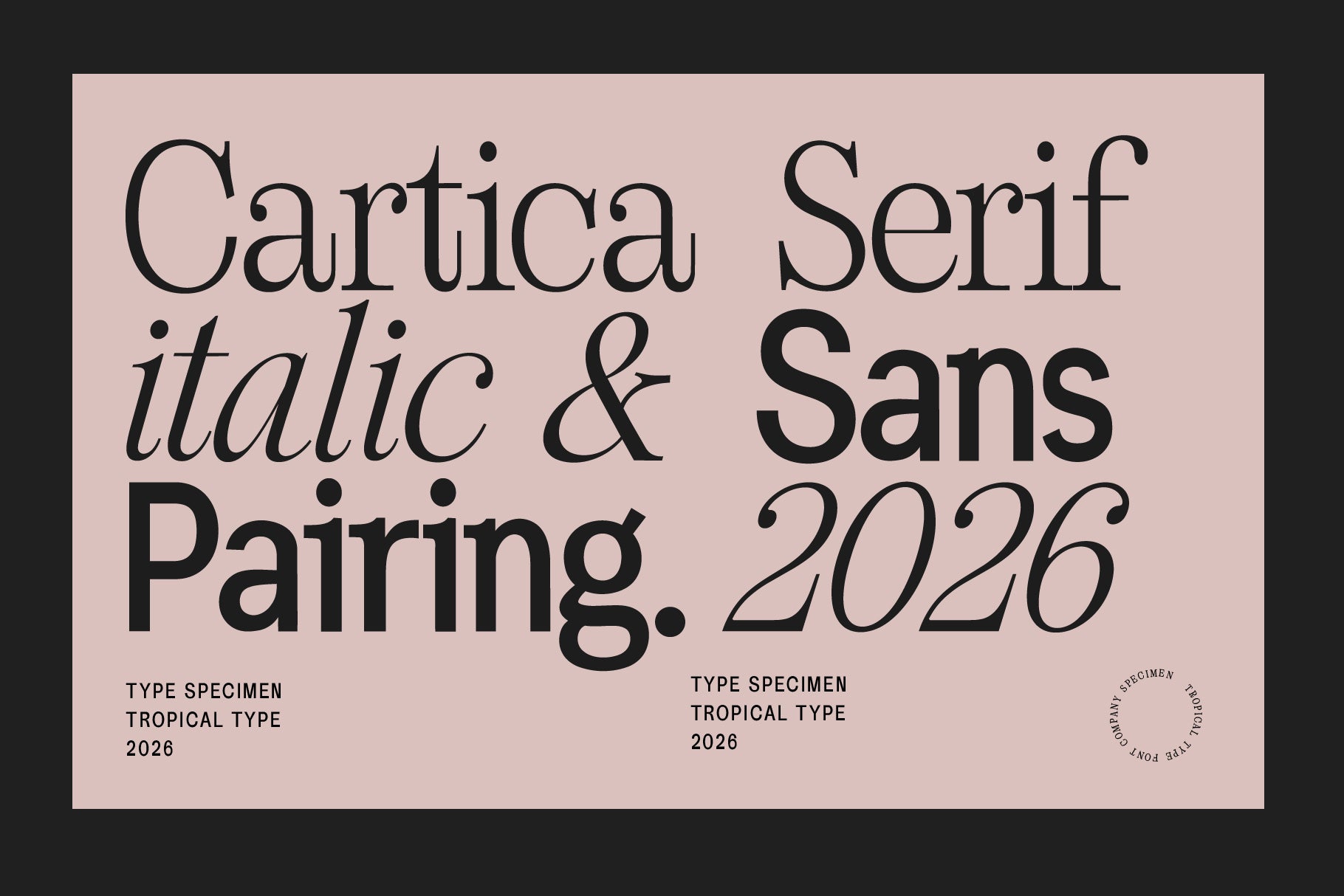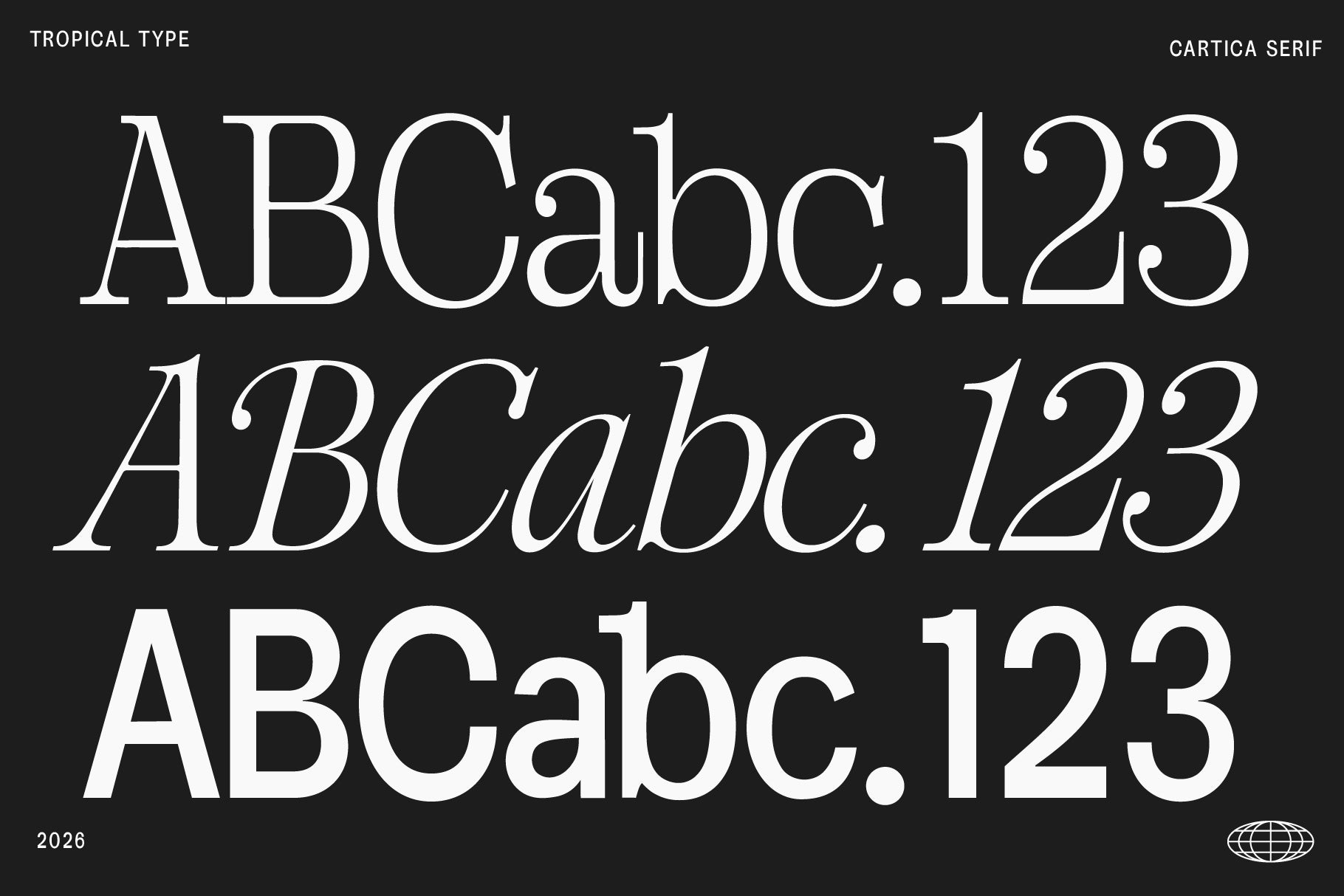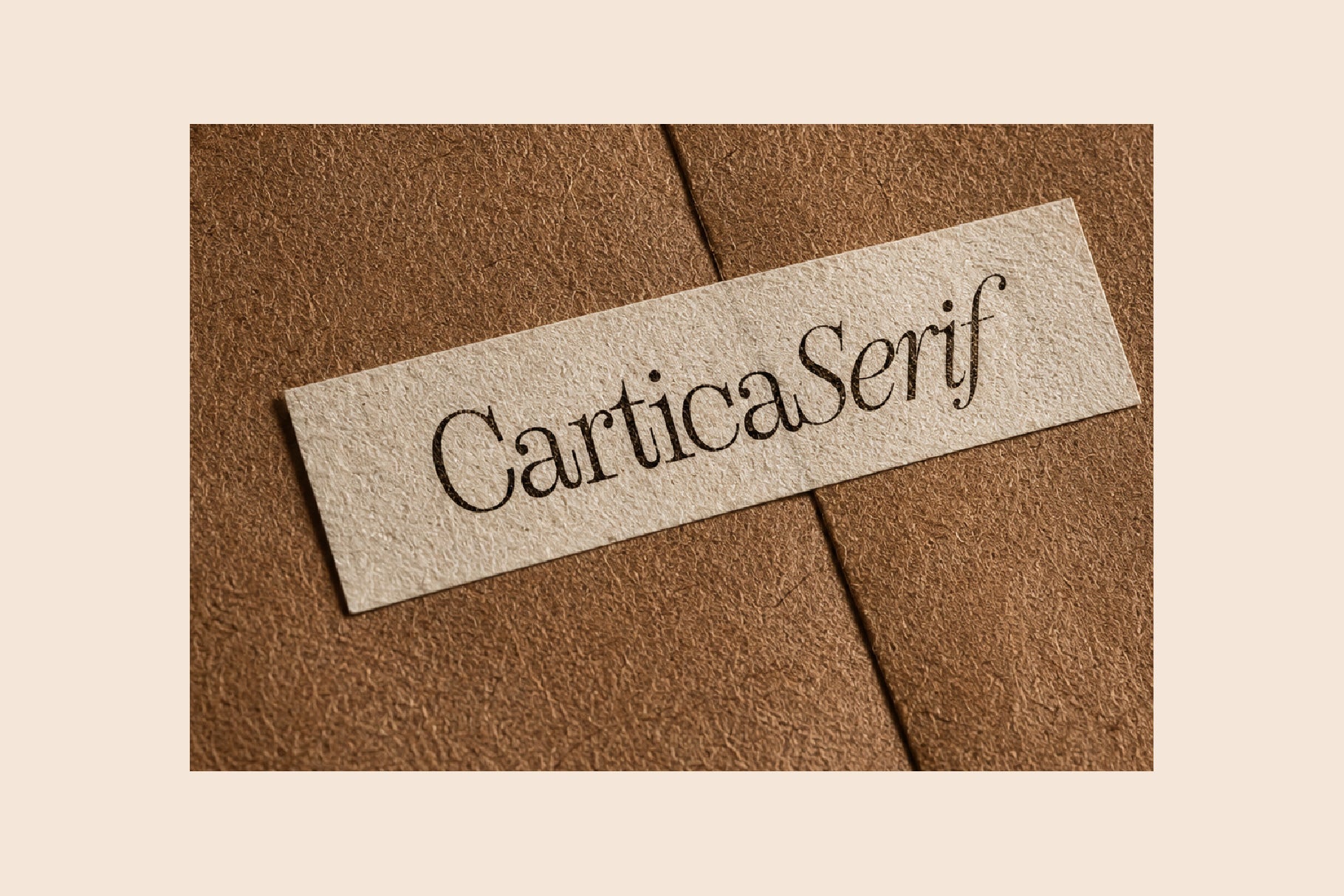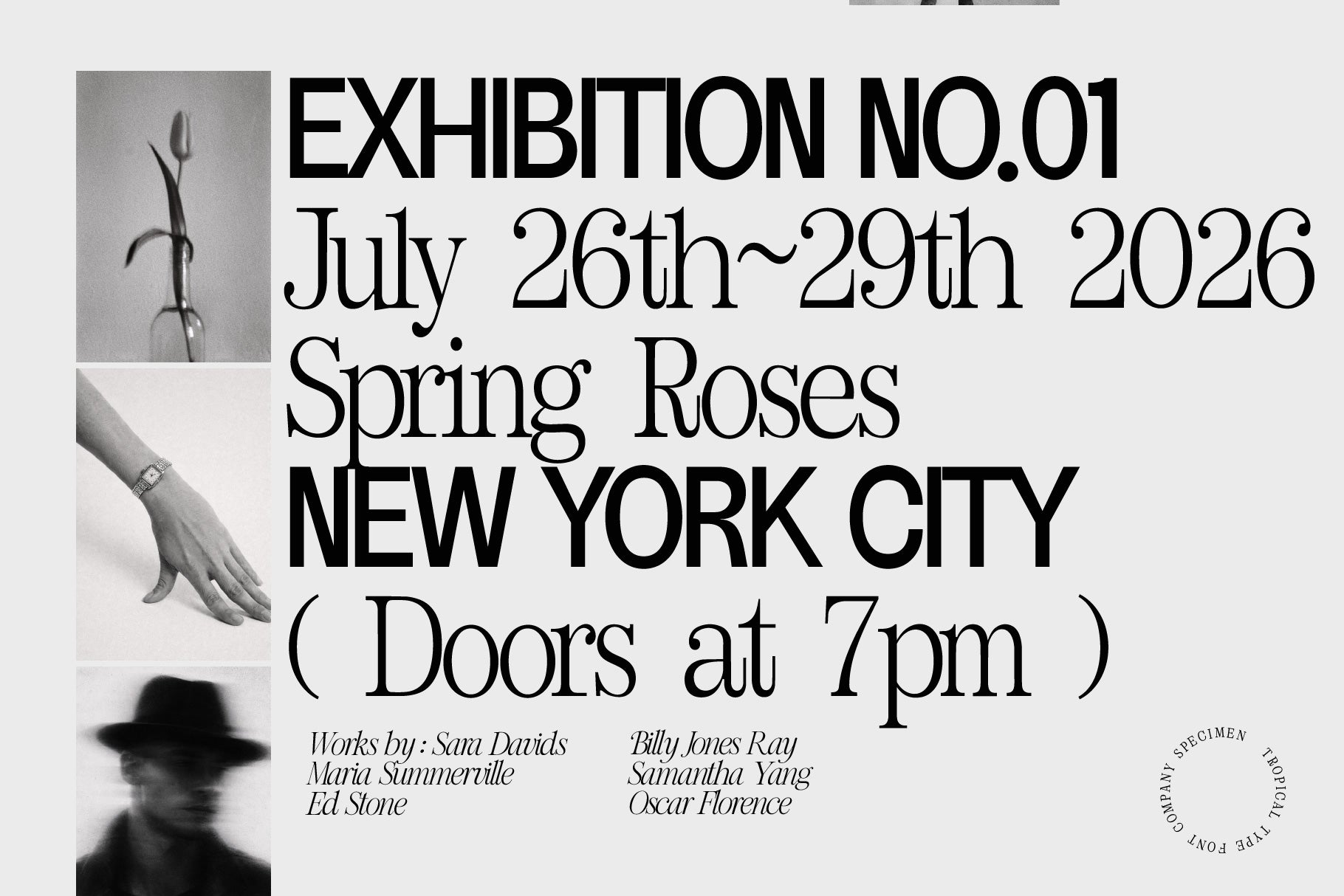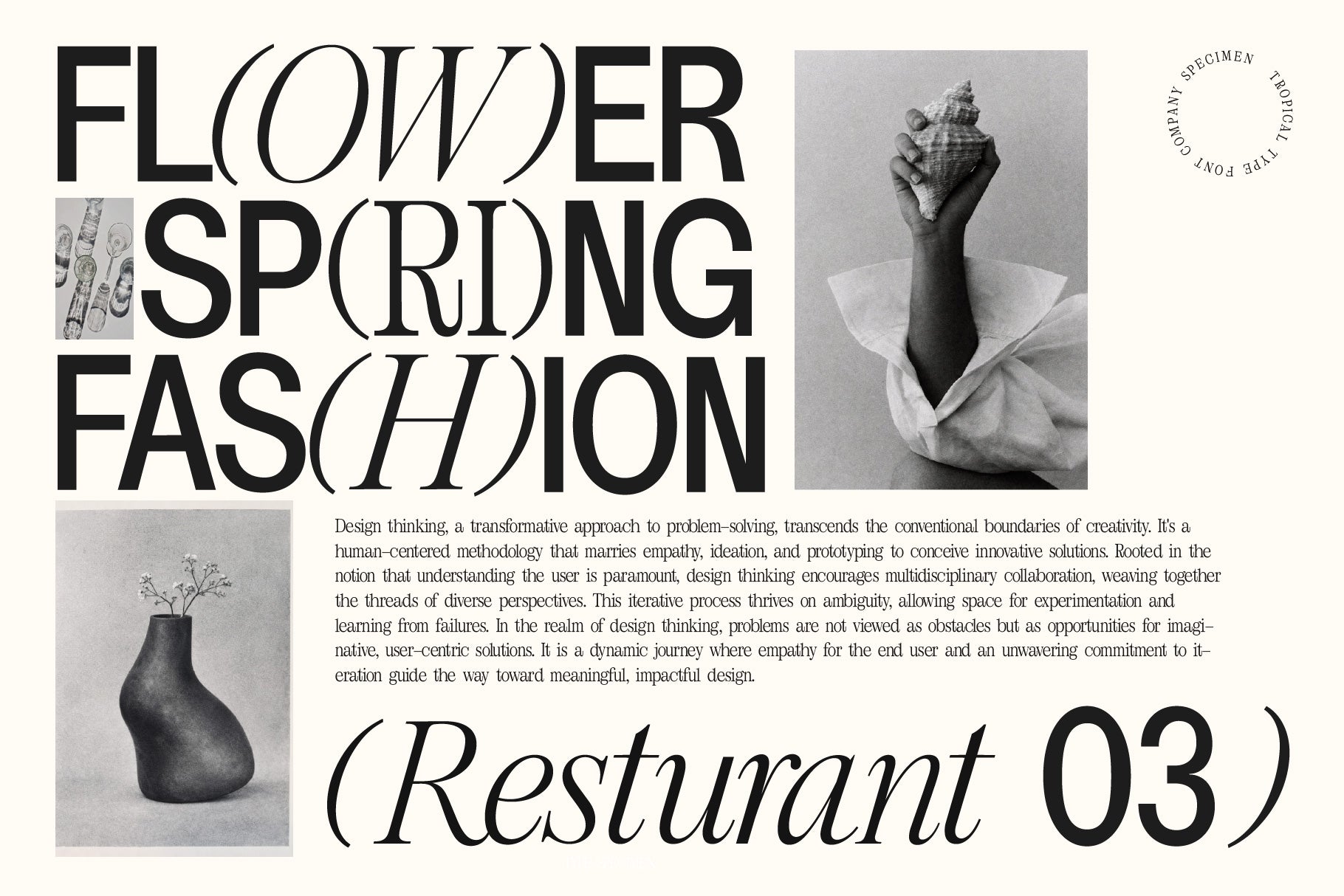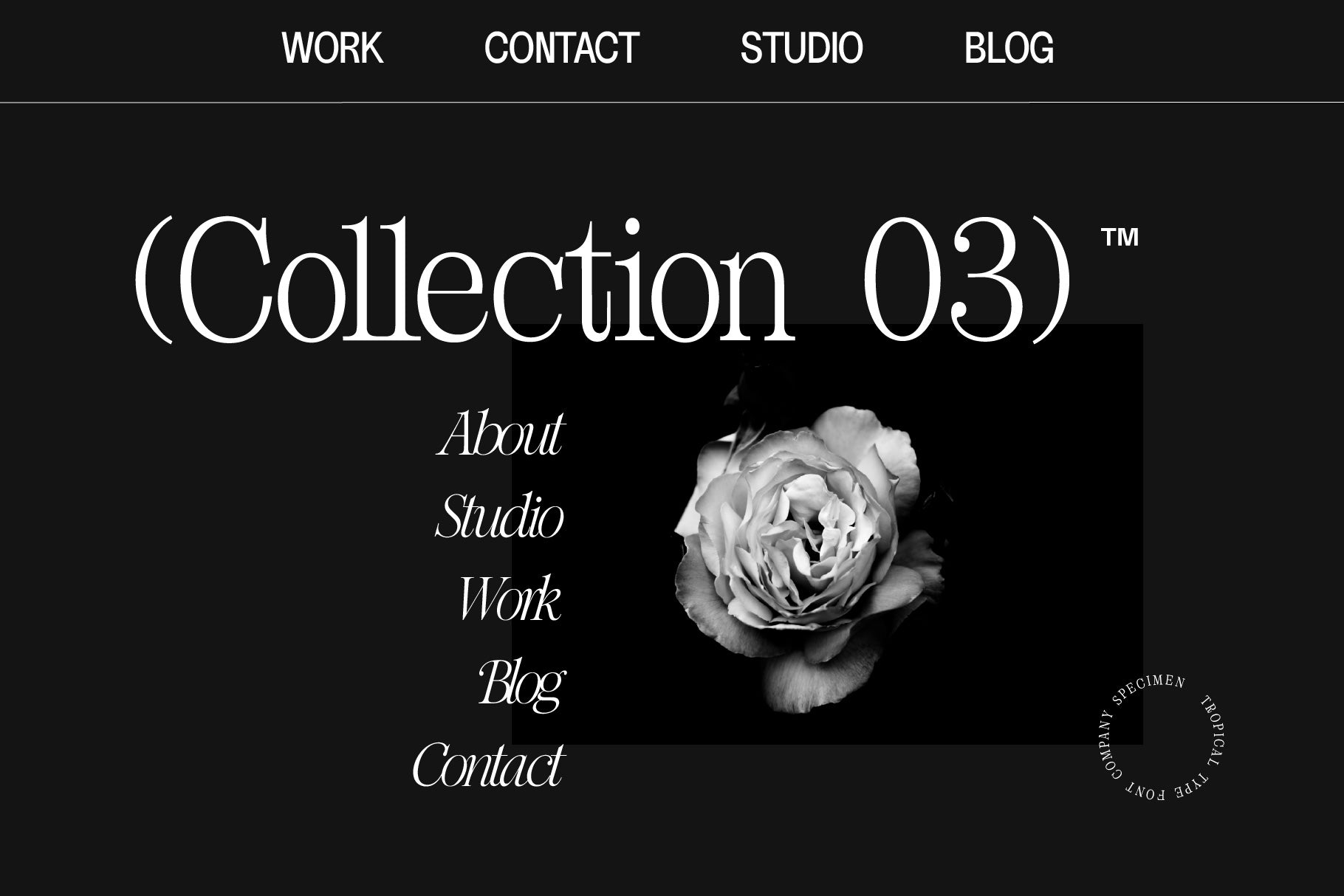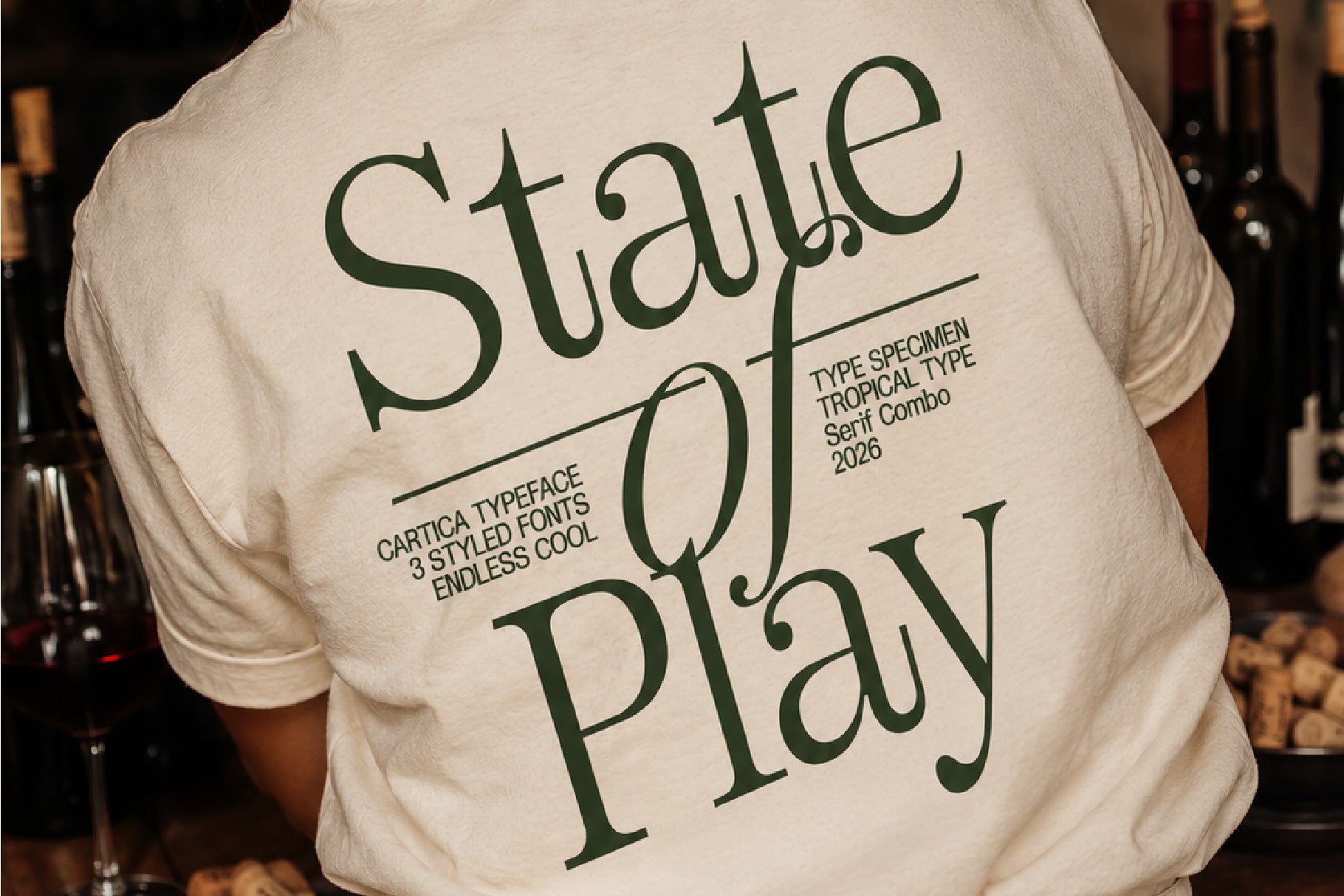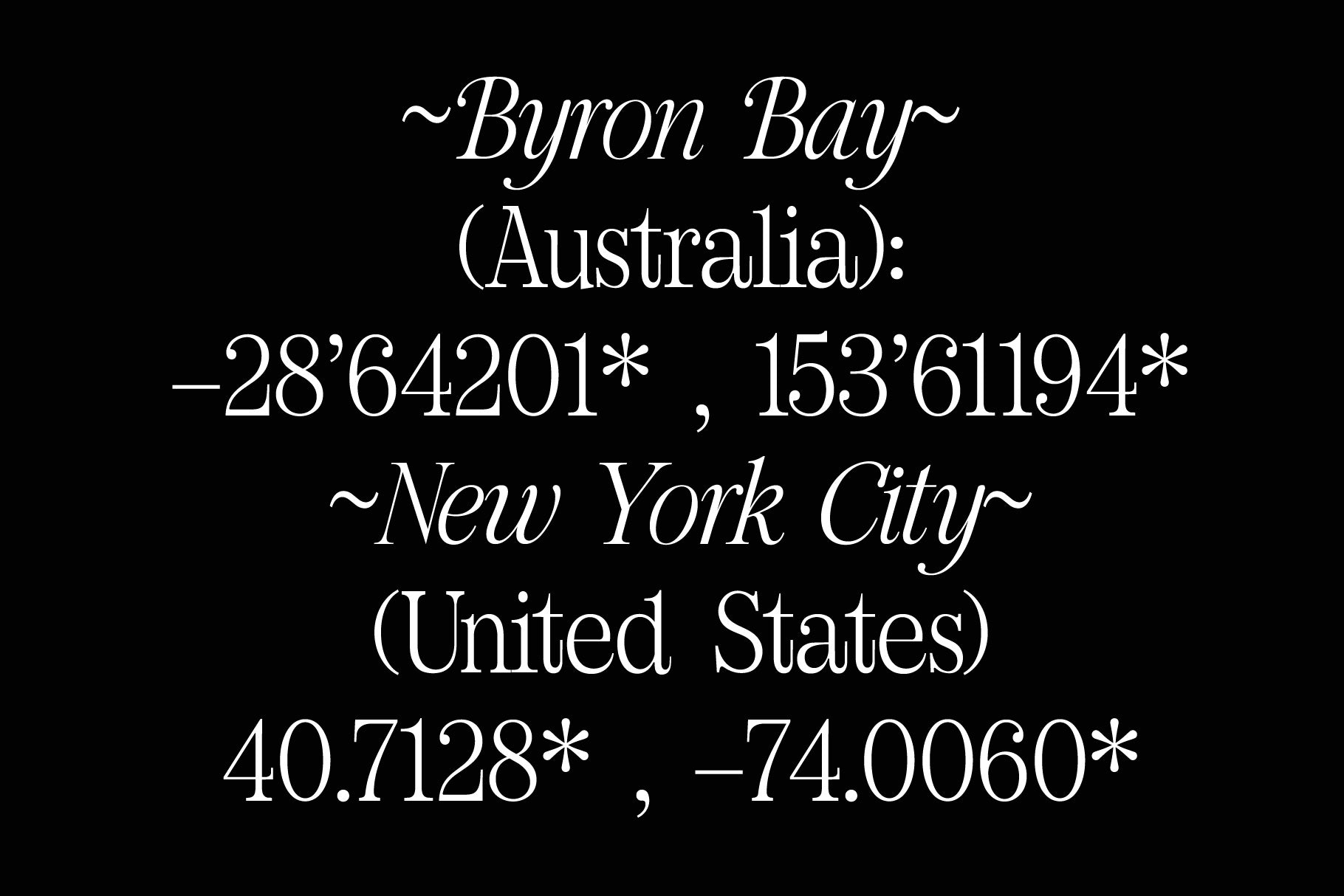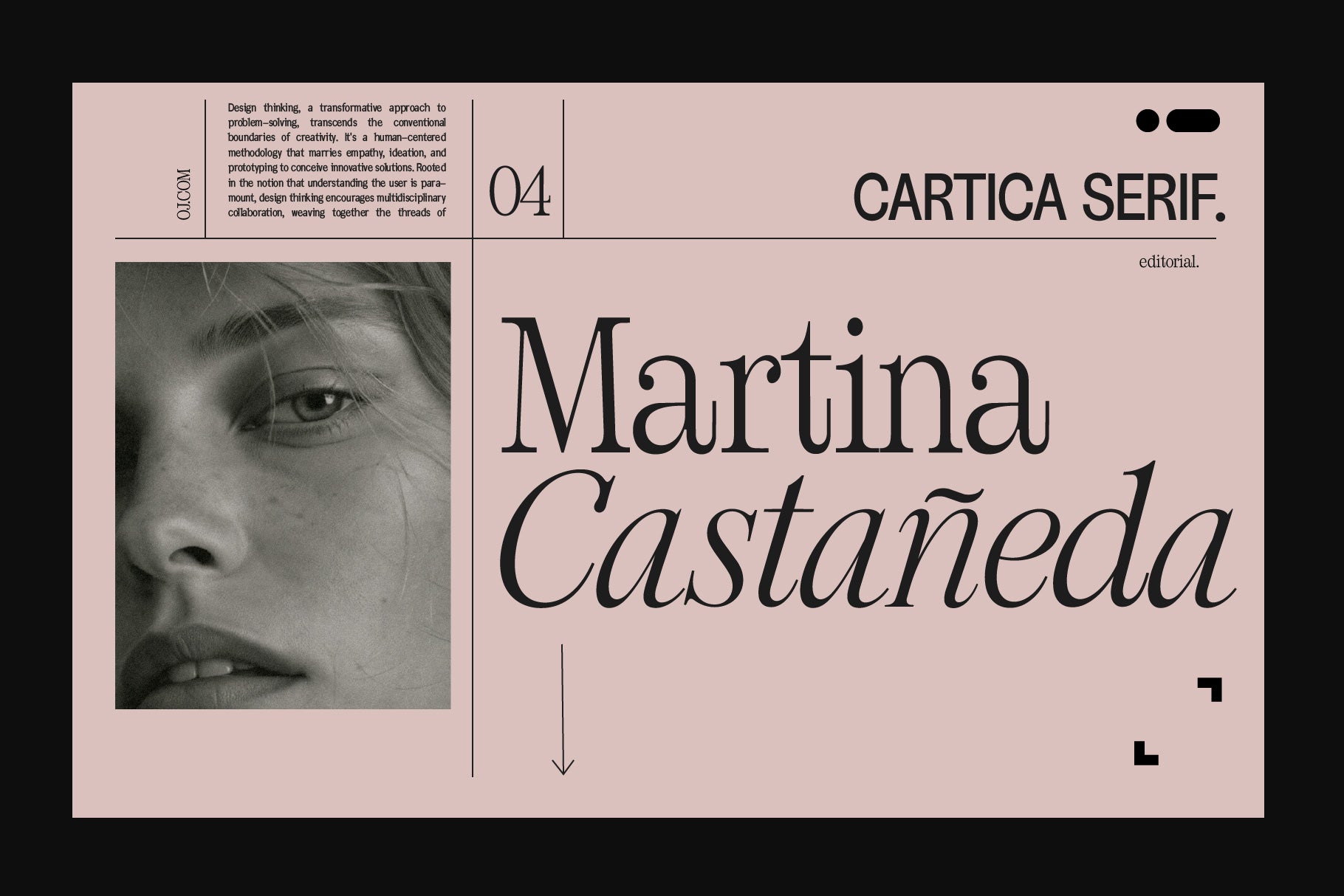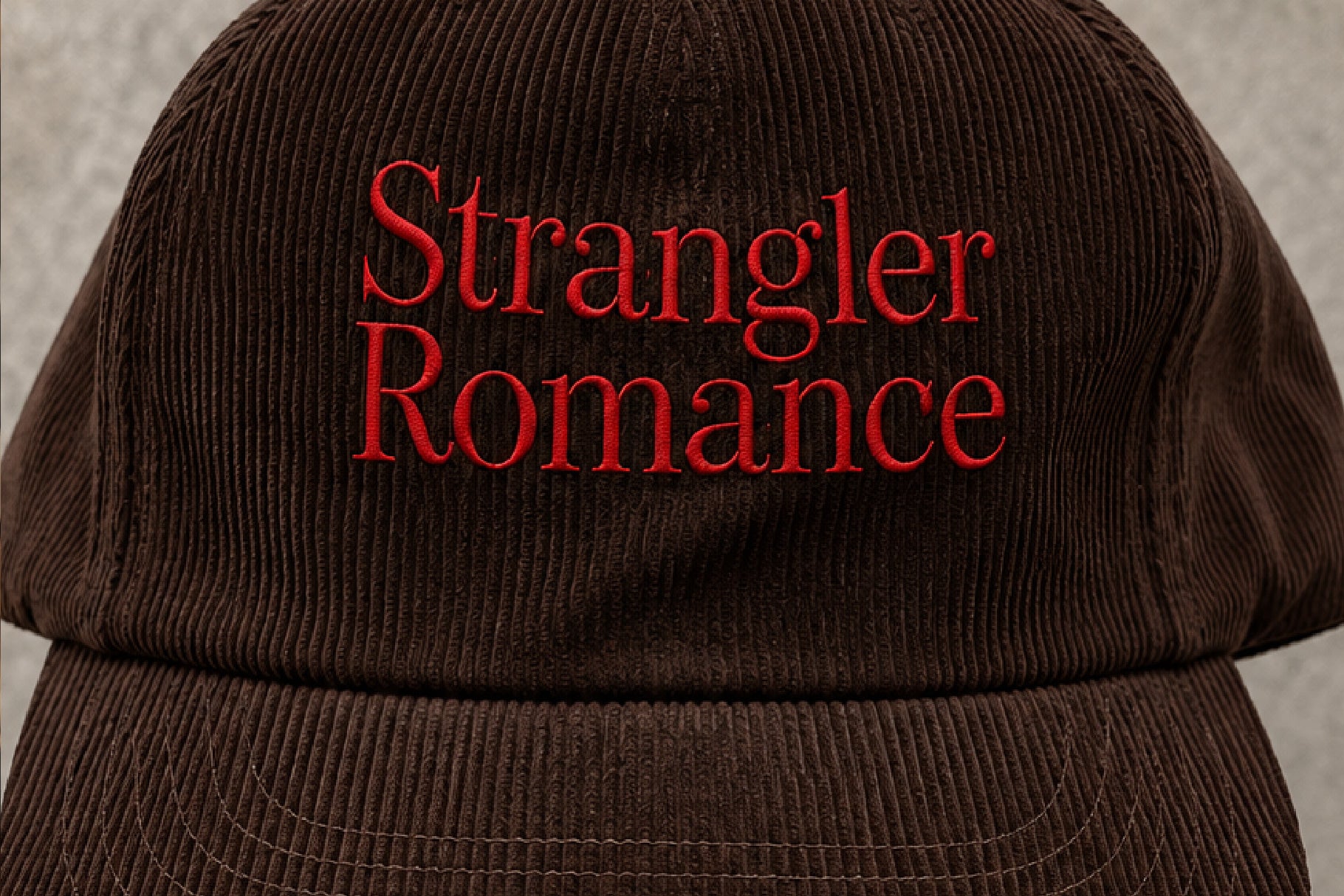
Cartica Serif
Cartica Serif.. It sounds cool, it looks cool. Whats not to like?
A sultry serif, not too thick, not too thin, with a paring italic and even a paring sans version! Mix them all together to make some stylish typographical fun!
At some point I will add a bold version also.
Non English glyphs included:
ą,á,â,à,ä,å,ã,æ,ć,ç,ę,é,ê,è,ë,í,î,ì,ï,ı,ł,ñ,ń,ó,ô,ò,ö,õ,ø,œ,ś,š,ß,ú,û,ù,ü,ý,ÿ,ž,ź,ż Ą,Á,Â,À,Ä,Å,Ã,Æ,Ć,Ç,Ę,É,Ê,È,Ë,Í,Î,Ì,Ï,Ł,Ń,Ñ,Ó,Ô,Ò,Ö,Õ,Ø,Œ,Ś,Š,Ú,Û,Ù,Ü,Ý,Ÿ,Ź,Ż